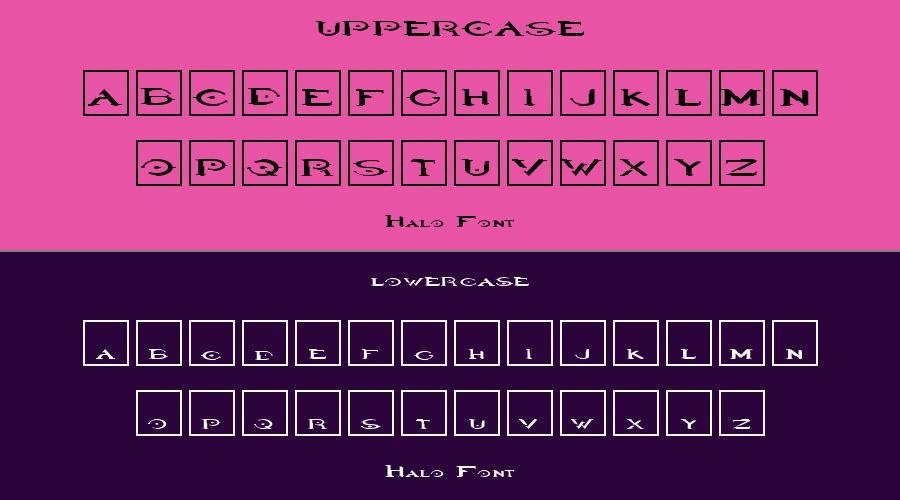
About Halo Font
Halo Font stands out for its distinctive combination of expressive energy and craftsmanship. Ideal for digital interfaces, it provides the consistency and refinement that professional projects demand. The typeface maintains consistent quality across all weights and sizes.
Key features include refined sharp edges and practical stylistic sets, enhancing typographic expression. In exhibition titles applications, Halo Font demonstrates exceptional detail preservation. The bowl shape and institutional trust contribute to its distinctive character and professional appeal.